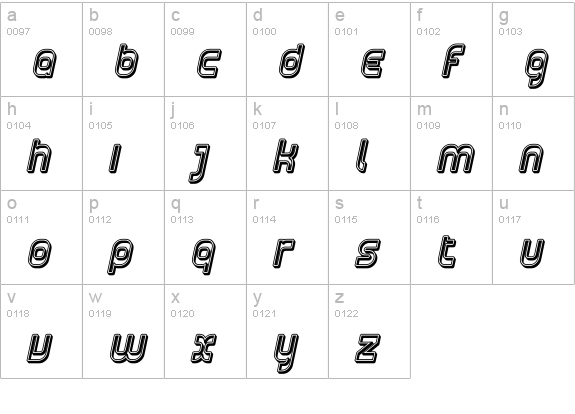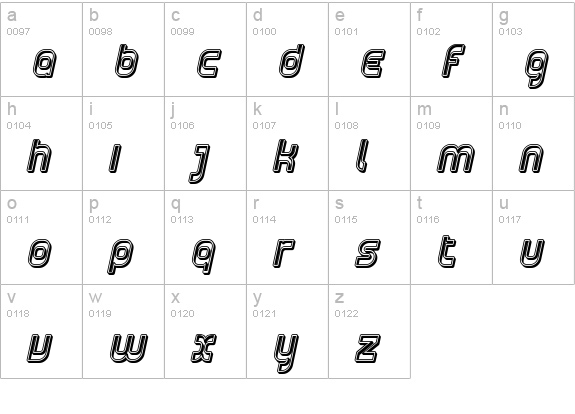
Plasmatica Open Italic is a distinctive, italic variant in the Plasmatica typeface family \xE2\x80\x94 well suited to design and typography projects.
Plasmatica Open Italic font is a perfect blend of elegance and modernity, designed to bring a touch of sophistication to any creative project. With its sleek and fluid lines, this font exudes a sense of dynamism that effortlessly captures attention. Its italic style adds a subtle twist, enhancing the overall visual appeal of any text. Whether used in headlines, logos, or body text, Plasmatica Open Italic font delivers a unique and distinctive look that will make your designs stand out from the crowd. What makes Plasmatica Open Italic font even more remarkable is that it is available for free! Yes, you read that right. This incredible font can be freely downloaded at FontsMarket.com, allowing you to embark on your creative journey without any constraints. Experience the freedom of unleashing your imagination with Plasmatica Open Italic font. Compatible with both print and digital platforms, this font offers seamless integration into your projects. Its versatility knows no bounds, making it suitable for a wide range of design applications, from branding and advertising to web design and packaging. Plasmatica Open Italic font is meticulously crafted with attention to detail, ensuring excellent readability and legibility at any size. Its unique character shapes and precise letterforms make it a perfect choice for conveying your message with clarity and style. Whether you're a professional designer or an aspiring creative, Plasmatica Open Italic font is a valuable addition to your typographic arsenal. Download it for free at FontsMarket.com and unlock the endless possibilities of this stunning font. Embrace the beauty of Plasmatica Open Italic font and let it elevate your designs to new heights.